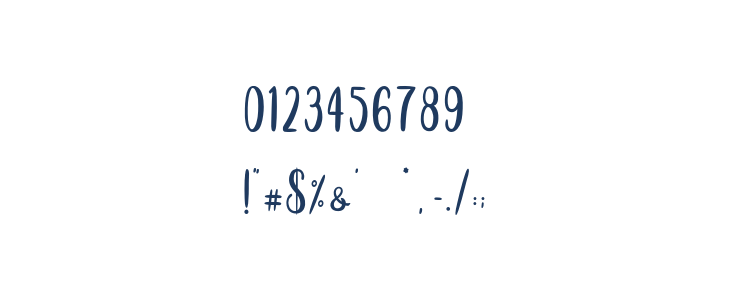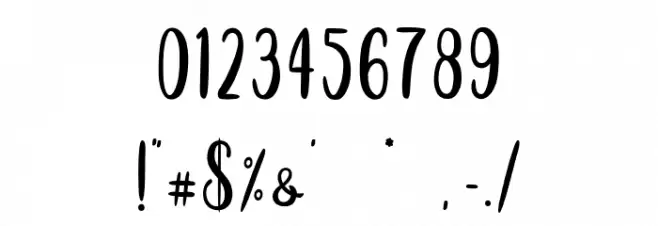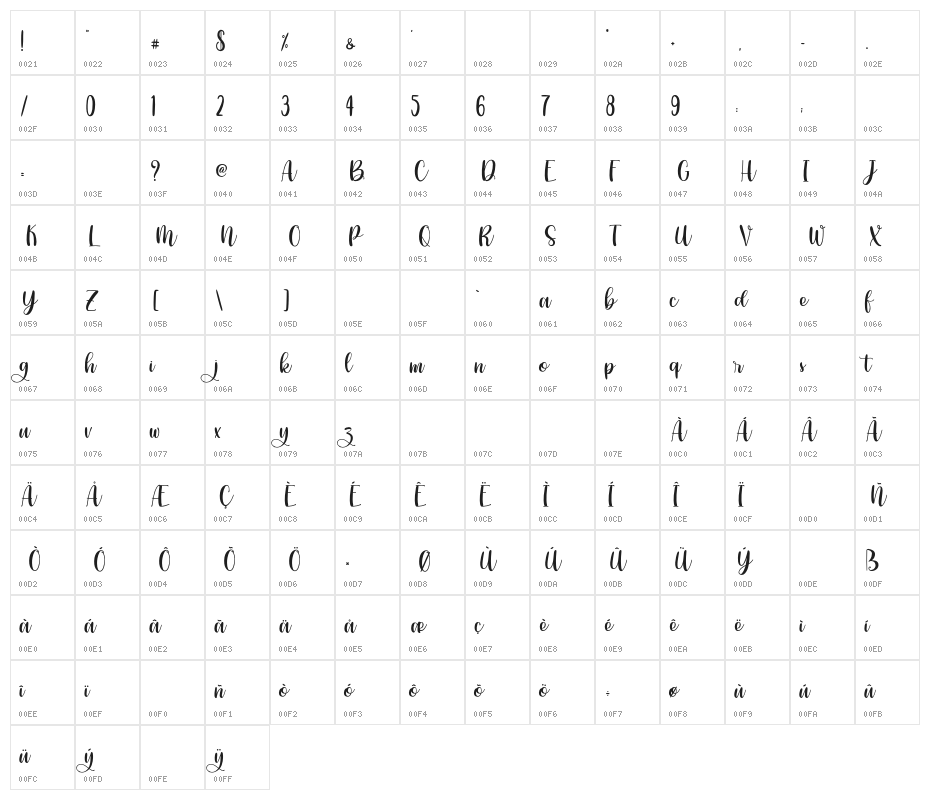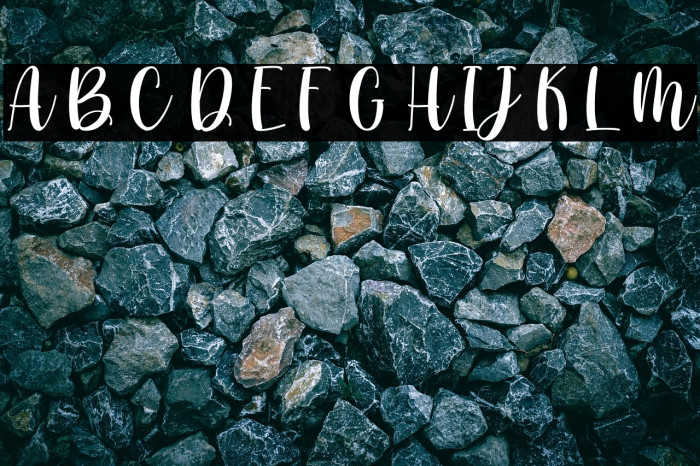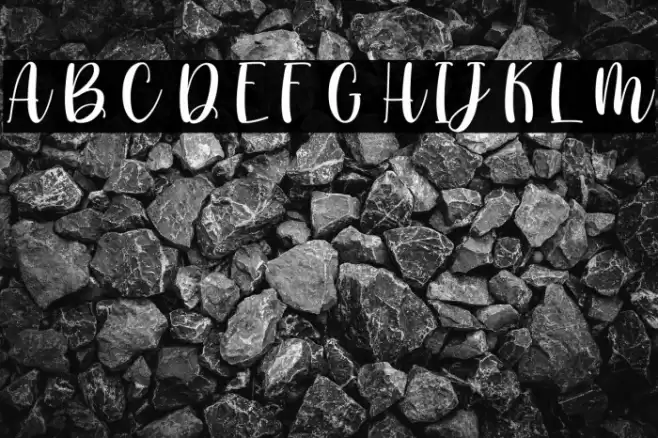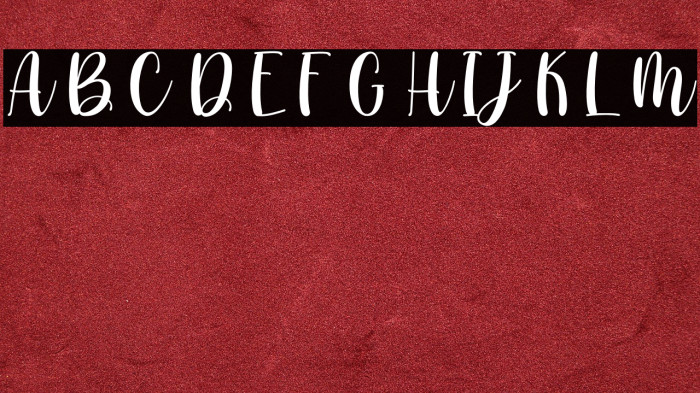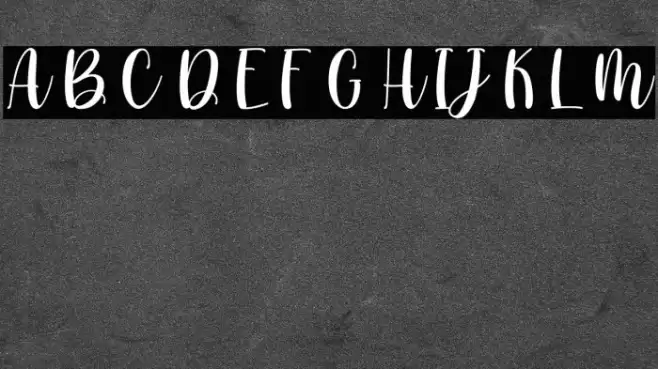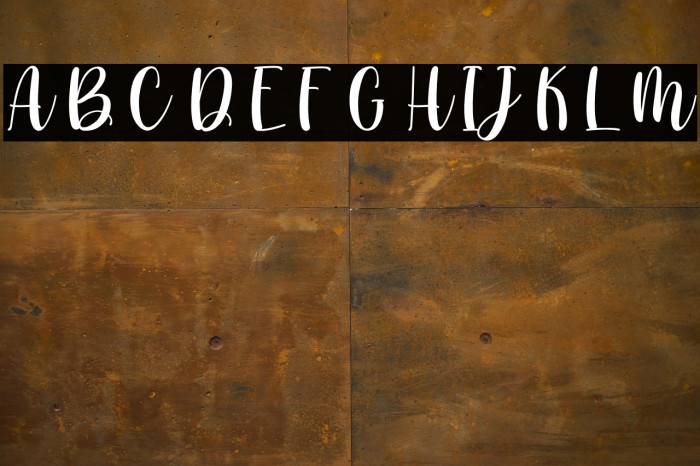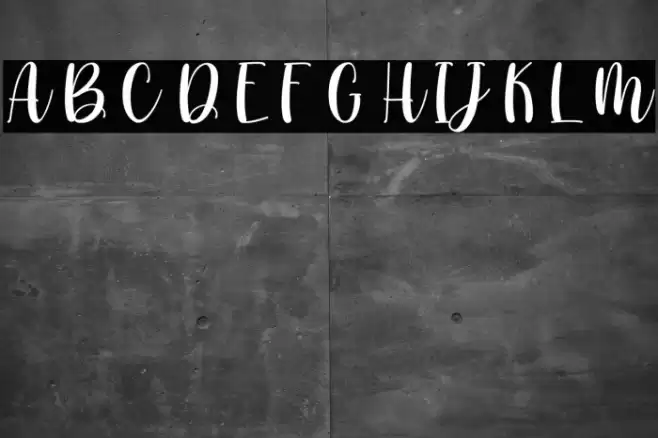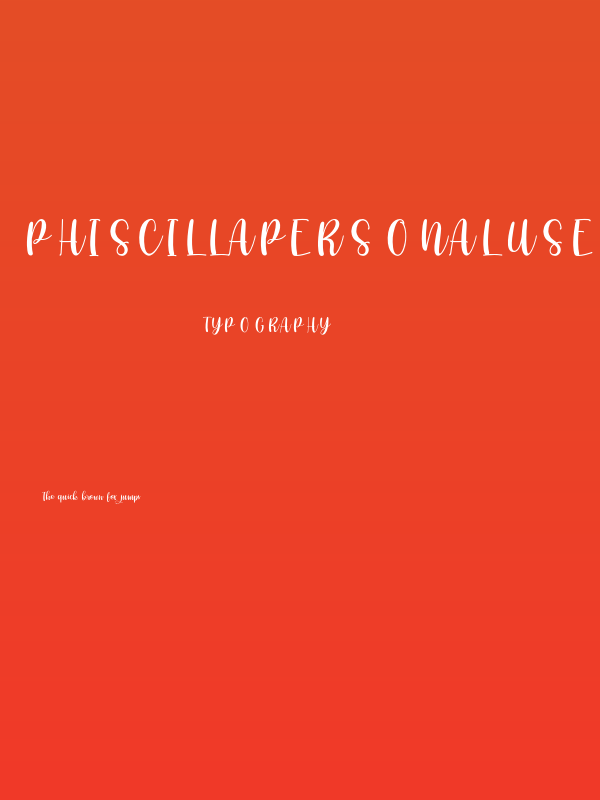
PhiscillaPersonalUse Font
PhiscillaPersonalUse Description
This font exudes a charming and elegant script style, characterized by its flowing, cursive letters that mimic the fluidity of handwriting. The uppercase letters are bold and slightly more structured, while the lowercase letters feature delicate swashes and loops, adding a touch of sophistication. The numbers are clear and maintain the script's graceful style. Special characters are creatively integrated, maintaining the overall aesthetic. This font is perfect for projects that require a personal, elegant touch, such as invitations, greeting cards, or branding materials.